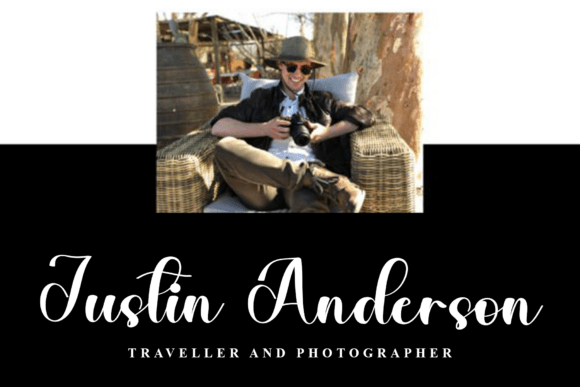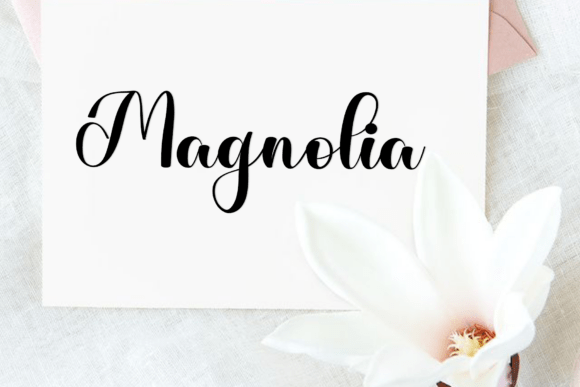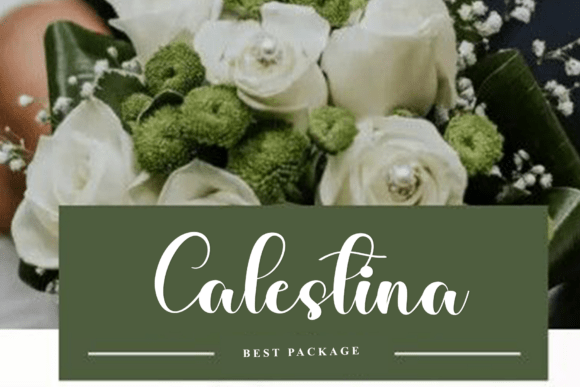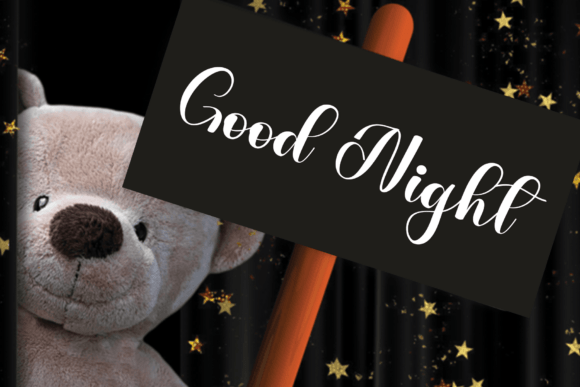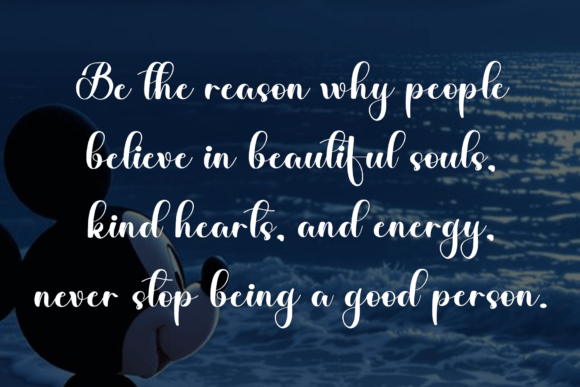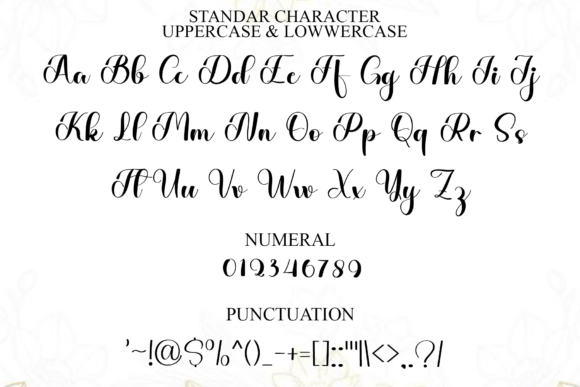
Baby Boy Font: A Festive and Merry Typeface for Holiday Designs
The holiday season is upon us, and what better way to get into the spirit than with a font that’s as festive and merry as Baby Boy Font? This decorative typeface is designed to capture the magic of the holiday season, adding a touch of enchantment to your designs. Whether you’re a designer, crafter, or DIY enthusiast, Baby Boy Font is the perfect addition to your typography collection.
A Font that Embodies the Spirit of the Holiday Season
Baby Boy Font is more than just a typeface – it’s an experience. With its whimsical flair and decorative elements, this font brings a cheerful and nostalgic ambiance to your words. Imagine creating greeting cards, gift tags, and holiday-themed projects that transport your recipients to a winter wonderland of joy and celebration. That’s what Baby Boy Font can do for you.
As a designer or crafter, you’re always on the lookout for unique and versatile fonts to elevate your projects. Baby Boy Font is a treasure trove of creative possibilities. Use it to:
- Create eye-catching greeting cards and invitations for holiday parties and events
- Design festive gift tags and wrapping paper that will make your presents stand out
- Develop holiday-themed projects, such as flyers, brochures, and social media graphics
- Add a personal touch to your handmade crafts, such as scrapbooking and journaling
What to Expect from Baby Boy Font
So, what can you expect from this festive and merry typeface? Here are just a few features that make Baby Boy Font a standout:
- Decorative elements and whimsical flair to add a touch of enchantment to your designs
- A wide range of glyphs and ligatures to give you creative freedom and flexibility
Tips for Using Baby Boy Font
To get the most out of Baby Boy Font, here are a few tips to keep in mind:
- Experiment with different font sizes and colors to create visual interest and hierarchy
- Use the font’s decorative elements and glyphs to add texture and depth to your designs
- Pair Baby Boy Font with other fonts to create a unique and eye-catching typography combination
- Don’t be afraid to get creative and try new things – that’s what Baby Boy Font is all about!
In conclusion, Baby Boy Font is a festive and merry typeface that’s perfect for designers, crafters, and DIY enthusiasts who want to add a touch of enchantment to their holiday designs. With its decorative elements, whimsical flair, and PUA encoding, this font is sure to become a favorite in your typography collection. So why wait? Get your hands on Baby Boy Font today and let the magic of the holiday season shine through in your designs!